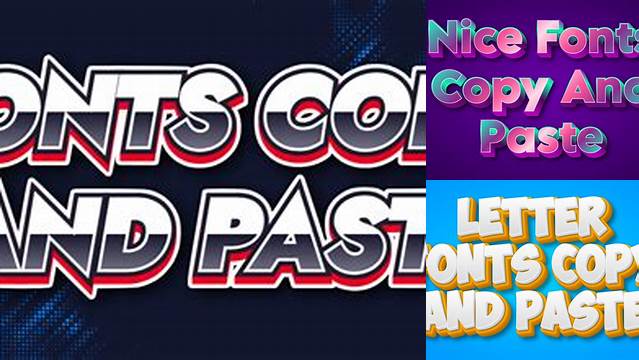
Copy & Paste Fonts: The Easy Guide
Are you looking to copy and paste fonts effortlessly? You've come to the right place! In this comprehensive guide, we'll dive deep into everything you need to know about copying and pasting fonts across various platforms and applications. Whether you're a designer, a content creator, or just someone who loves to personalize their digital space, mastering the art of font transfer is a game-changer. So, let's get started, guys!
Understanding Fonts
Before we dive into the nitty-gritty of copying and pasting, let's quickly cover the basics of fonts. Fonts are essentially digital files that contain the visual design of characters, including letters, numbers, and symbols. They come in various formats, such as TTF (TrueType Font), OTF (OpenType Font), and WOFF (Web Open Font Format). Each format has its own advantages and compatibility considerations.
Font Types
- Serif Fonts: These fonts have small decorative strokes (serifs) at the end of each character. They are often used in print media and are considered traditional and formal. Examples include Times New Roman and Garamond.
- Sans-Serif Fonts: These fonts lack serifs, giving them a cleaner and more modern look. They are commonly used in digital interfaces and are known for their readability on screens. Examples include Arial and Helvetica.
- Script Fonts: These fonts resemble handwriting and are often used for invitations, logos, and decorative purposes. Examples include Brush Script and Pacifico.
- Monospace Fonts: In these fonts, each character occupies the same amount of horizontal space. They are often used in coding and technical documentation. Examples include Courier New and Consolas.
- Display Fonts: These fonts are designed for headlines and titles and are often more decorative and expressive than body text fonts. Examples include Impact and Bebas Neue.
Understanding these font types will help you make informed decisions when choosing fonts for your projects and when copying and pasting them across different platforms.
Why Copy and Paste Fonts?
So, why is it so important to learn how to copy and paste fonts? Well, there are several reasons. First and foremost, it allows you to maintain consistency in your branding and design. Imagine creating a stunning logo with a unique font, and then struggling to use that same font across your website, social media, and marketing materials. Copying and pasting fonts ensures that your brand identity remains consistent and recognizable.
Maintaining Brand Consistency
Brand consistency is key to building a strong brand image. When your fonts are consistent across all platforms, it creates a cohesive and professional look that resonates with your audience. This helps to establish trust and credibility, making it easier for customers to recognize and remember your brand. Copying and pasting fonts is a simple yet effective way to achieve this consistency.
Personalizing Your Digital Space
Beyond branding, copying and pasting fonts also allows you to personalize your digital space. Whether you're creating custom social media posts, designing your own website, or simply adding a personal touch to your documents, having access to a wide variety of fonts can make all the difference. By copying and pasting fonts, you can express your unique style and create visually appealing content that stands out from the crowd.
Saving Time and Effort
Let's be honest, manually searching for and installing fonts every time you need them can be a real pain. Copying and pasting fonts streamlines this process, saving you valuable time and effort. Instead of wasting hours hunting down the perfect font, you can simply copy it from one location and paste it into another, allowing you to focus on more important tasks. It's a real lifesaver, trust me!
Methods for Copying and Pasting Fonts
Alright, let's get to the good stuff! There are several methods you can use to copy and paste fonts, depending on the platform and application you're working with. Here are some of the most common and effective techniques:
Using Font Management Software
Font management software is a powerful tool that allows you to organize, activate, and deactivate fonts on your system. It also makes it incredibly easy to copy and paste fonts between different applications. Some popular font management software options include:
- Adobe Fonts: If you're an Adobe Creative Cloud subscriber, you have access to a vast library of fonts that can be easily activated and used in any Adobe application.
- FontBase: A free and user-friendly font management tool that allows you to organize your fonts into collections and activate them with a single click.
- NexusFont: Another free font management tool that offers a variety of features, including font preview, tagging, and filtering.
To copy and paste fonts using font management software, simply activate the font you want to use in the software, and then select it in the font menu of the application you're working with. It's that easy!
- Respect Font Licenses: Always respect font licenses and ensure that you have the appropriate permissions to use the fonts you're using. This will help to avoid legal issues and support the work of font designers.
So, there you have it! A comprehensive guide to copying and pasting fonts like a pro. By understanding the basics of fonts, mastering the various copying methods, and following the best practices for font management, you'll be well-equipped to create stunning designs and personalize your digital space with ease. Now go forth and spread the font love, guys!